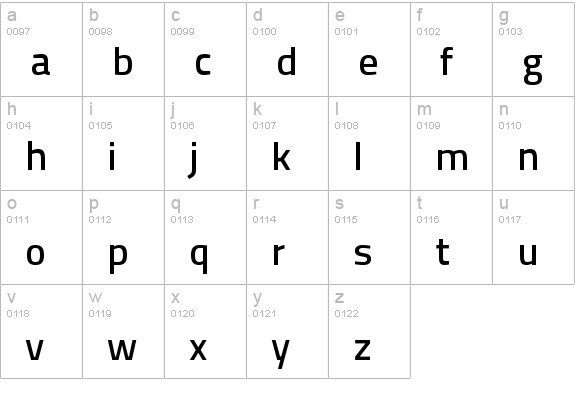
TitilliumText22L-Medium Font Details
TitilliumText22L-Medium is a balanced, medium-weight variant in the TitilliumText22L typeface family \xE2\x80\x94 well suited to sub-headlines, navigation, and balanced editorial work.
TitilliumText22L-Medium font is a modern and versatile typeface that strikes the perfect balance between professionalism and readability. With its clean lines and medium weight, this font is ideal for various design projects such as branding, editorial design, and web design. The elegant and timeless design of TitilliumText22L-Medium font makes it suitable for both headings and body text, ensuring a cohesive and polished look for any project. Best of all, TitilliumText22L-Medium font is available for free download at FontsMarket.com, making it accessible to designers and creatives looking to elevate their work without breaking the bank. Whether you're a seasoned designer or just starting out, TitilliumText22L-Medium font is a valuable addition to your font library, offering a perfect blend of style and functionality. Download this font today and add a touch of sophistication to your next design project.